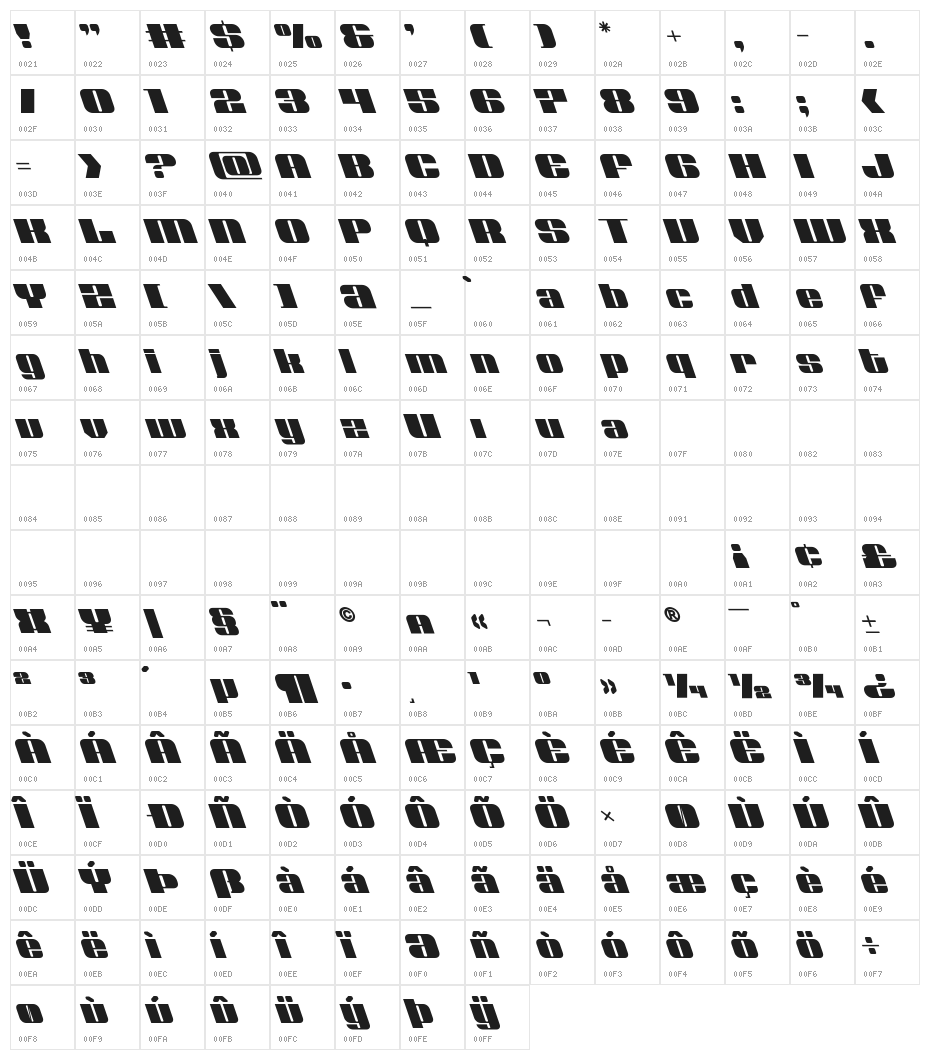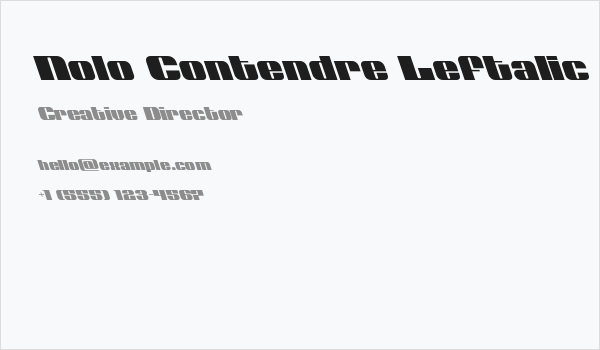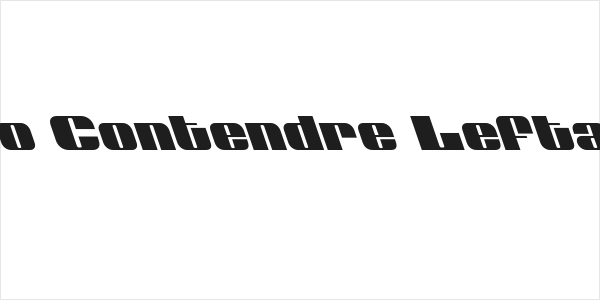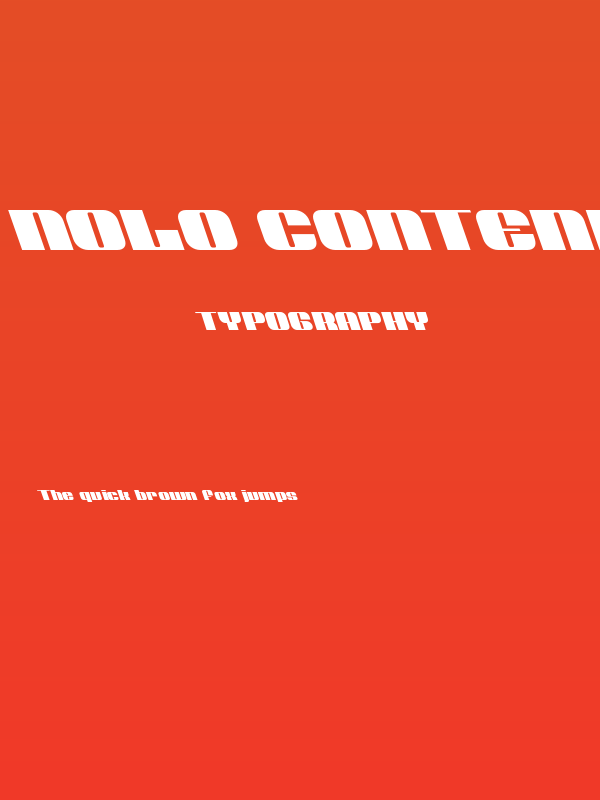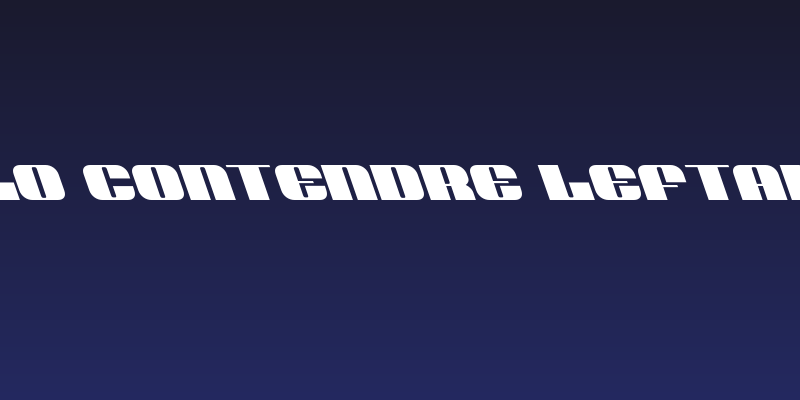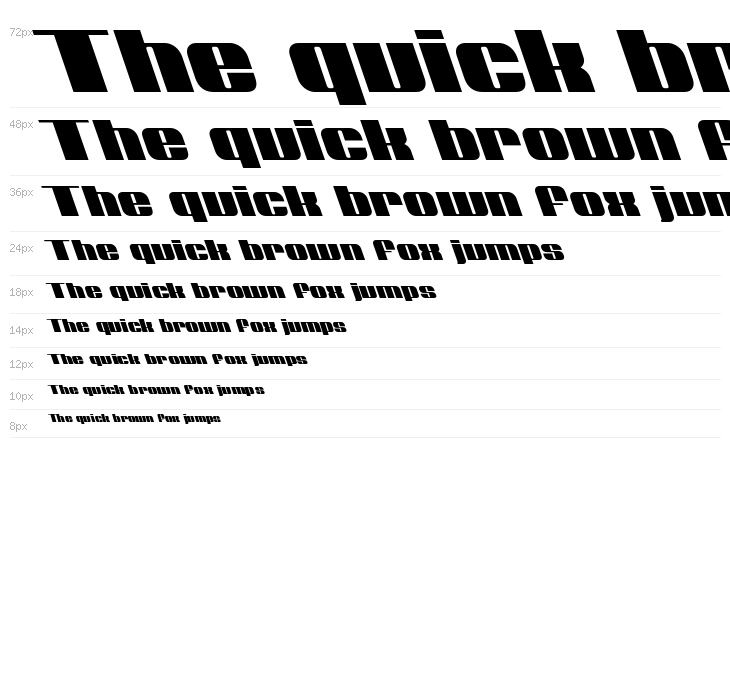
Nolo Contendre Leftalic Font
Nolo Contendre Leftalic Description
This font features a bold and dynamic style with a strong presence. The characters are designed with a distinct slant, giving them a sense of motion and energy. The strokes are thick and consistent, providing a robust and impactful appearance. The uppercase and lowercase letters maintain a uniform width, contributing to a cohesive look. The numbers and special characters are crafted with the same boldness, ensuring they stand out. This font's unique design makes it suitable for projects that require a striking and modern aesthetic.
| Proposed Projects | Ideal for headlines, posters, branding, and any design that requires a strong visual impact. |